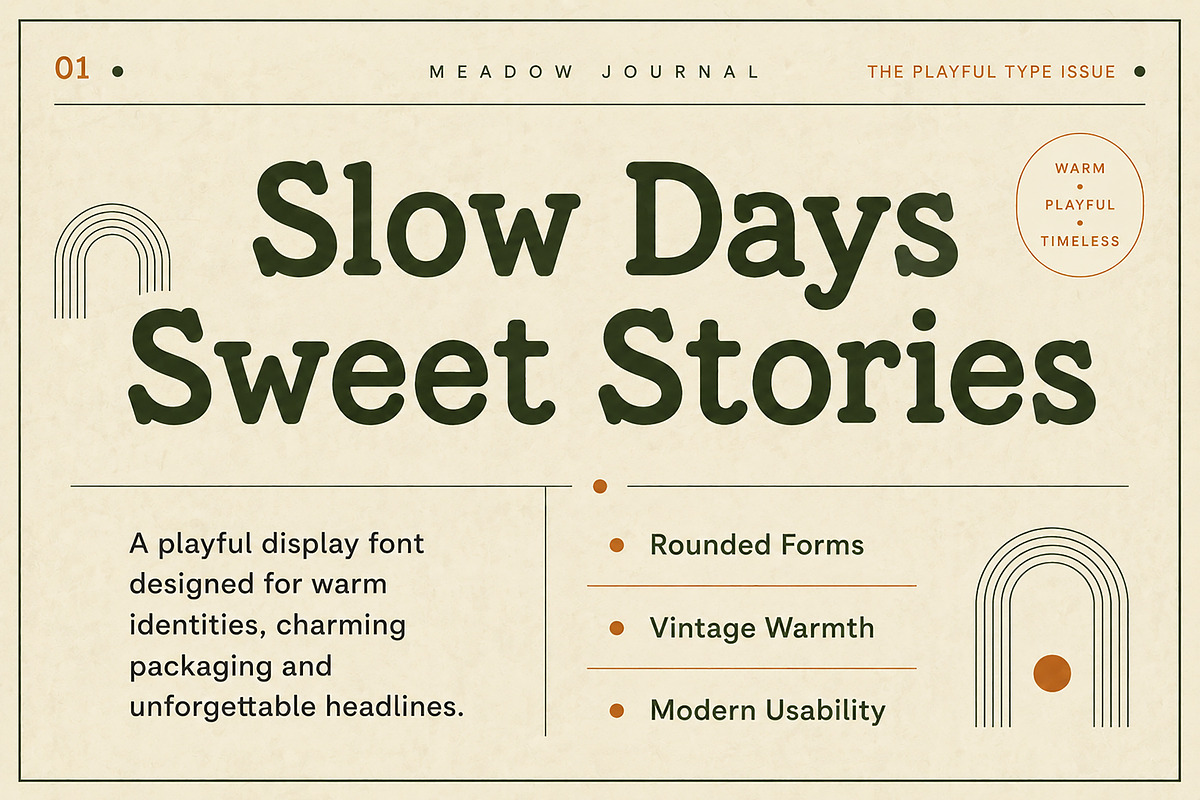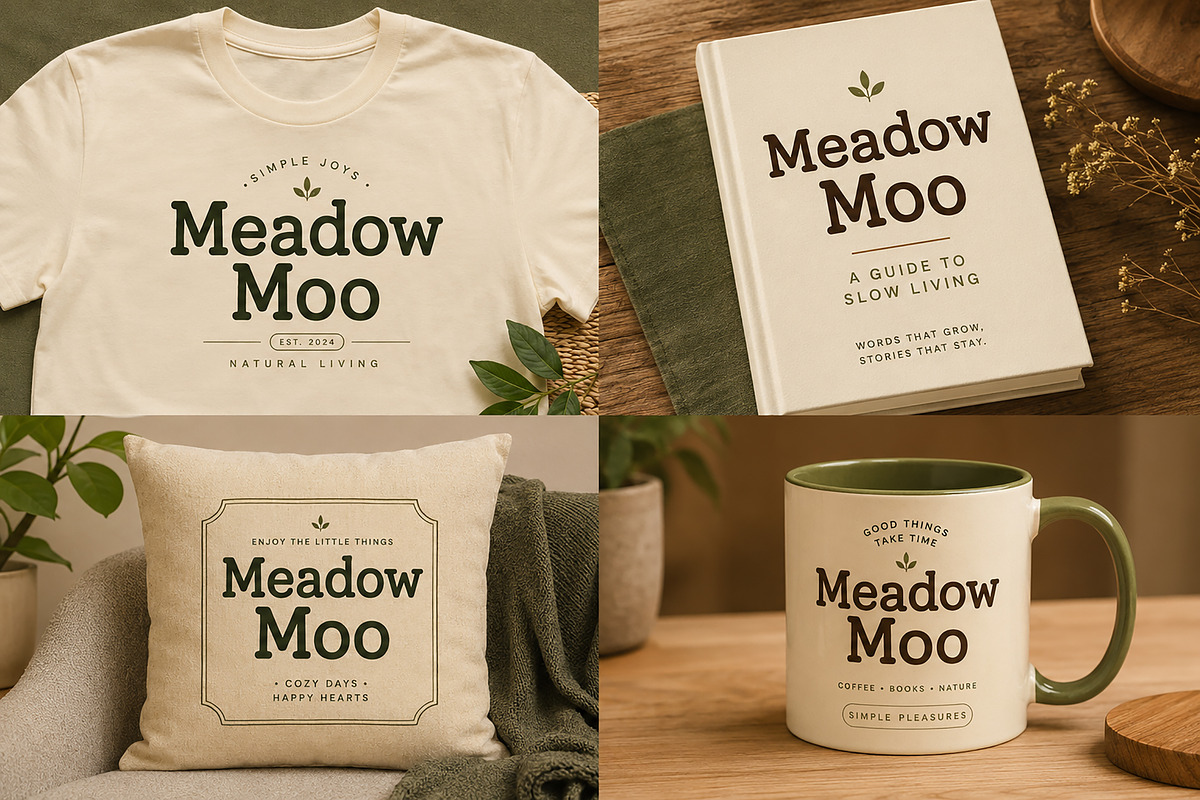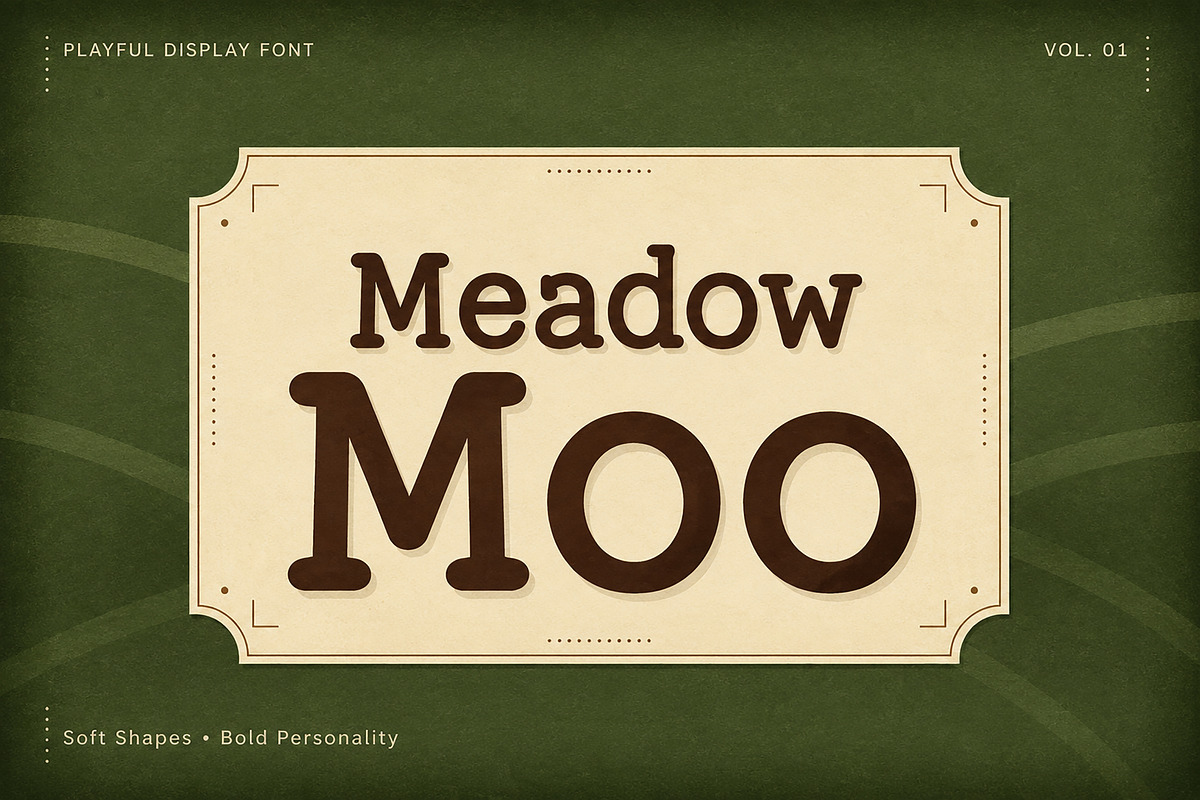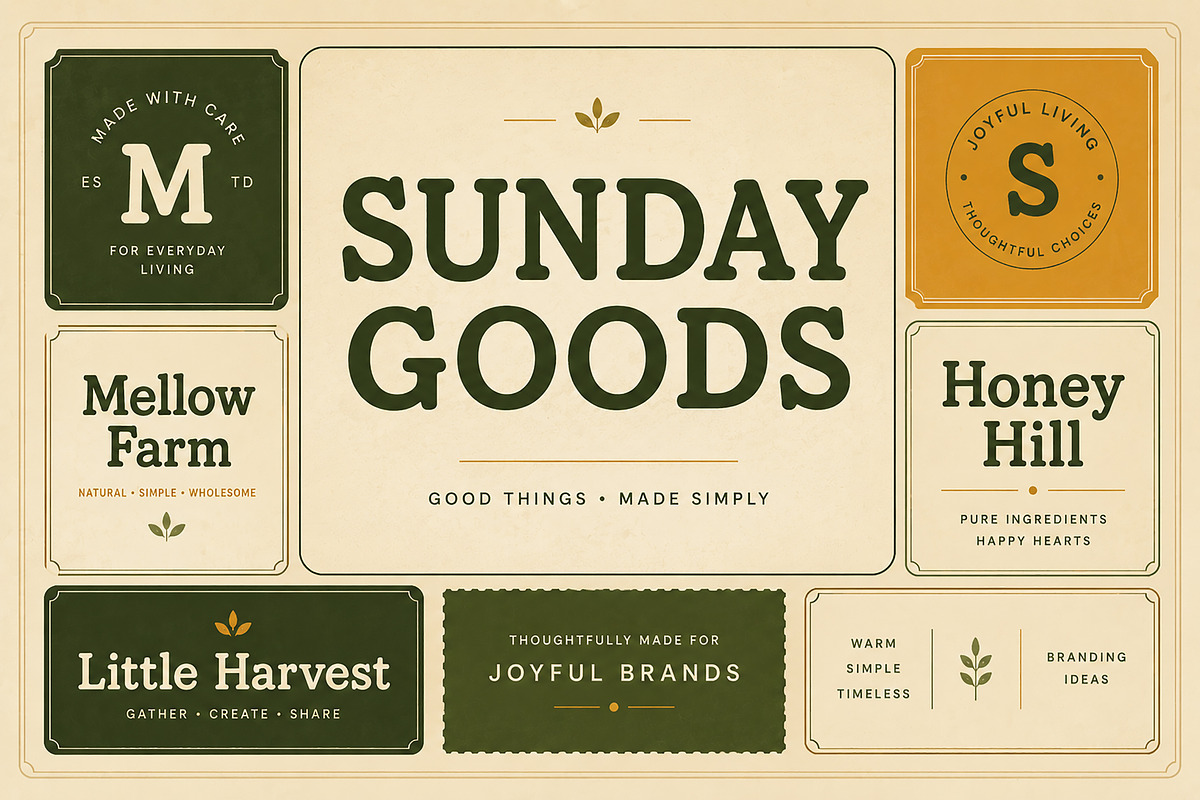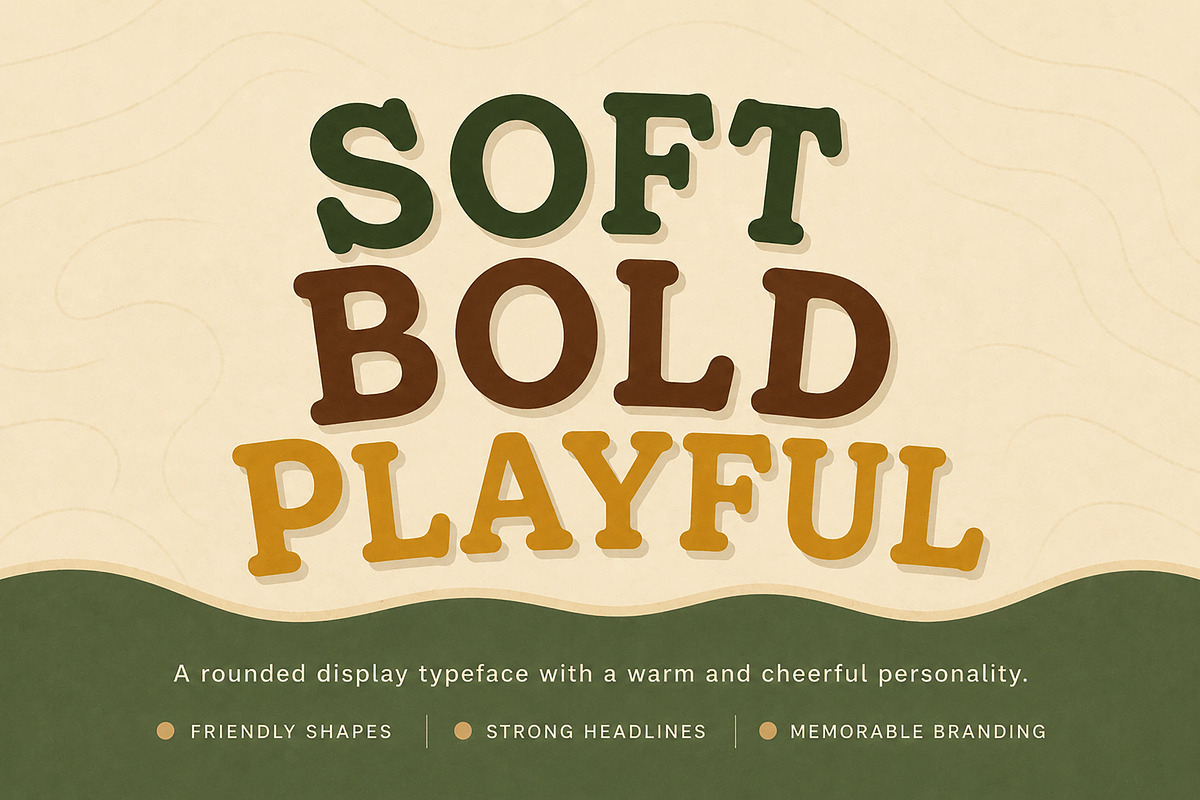
Meadow Moo
Meadow Moo is a playful display font with a warm, handcrafted personality. Featuring soft rounded letterforms and a charming vintage-inspired style, this typeface is perfect for creating eye-catching headlines, memorable logos, cozy branding, product packaging, social media graphics, posters, invitations, and creative projects.
Whether you're designing for handmade brands, cafés, bakeries, lifestyle businesses, children's products, or modern rustic identities, Meadow Moo adds a friendly and joyful touch to every design.
Designed to be bold, readable, and full of character, this font helps your projects stand out while maintaining a clean, premium look.
Logos & Brand Identity
Food & Beverage Branding
Bakery & Café Designs
Product Labels
Posters & Headlines
Greeting Cards
Stickers
T-Shirt Designs
Children's Products
Handmade Businesses
Craft Projects
Website Headers
Editorial Titles
Uppercase Letters
Lowercase Letters
Smooth Rounded Letterforms
Clean Display Style
High-Quality Letter Spacing
Why You'll Love Meadow Moo
Warm and friendly personality
Perfect for modern rustic branding
Bold and highly readable
Premium handcrafted appearance
Great for both print and digital projects
Easy to use for beginners and professionals